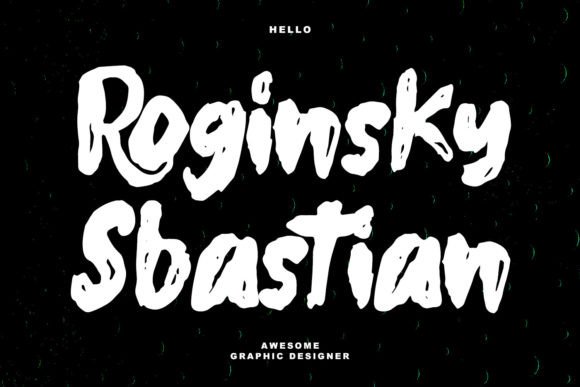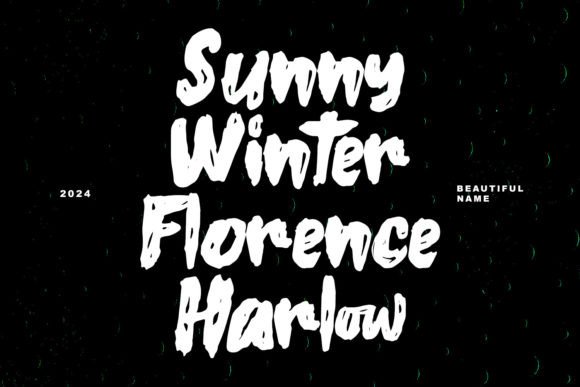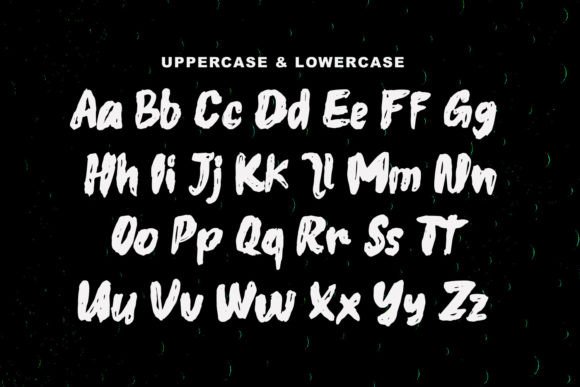
Introduction to Clowed Rollnow Font
Clowed Rollnow brush handmade font.
This font is good for logo design, Social media, Movie Titles, book titles, a short text even a long text letter and good for your secondary text font with signature or script typeface Make a stunning work with Clowed Rollnow brush handmade font.
Why Choose Clowed Rollnow Font?